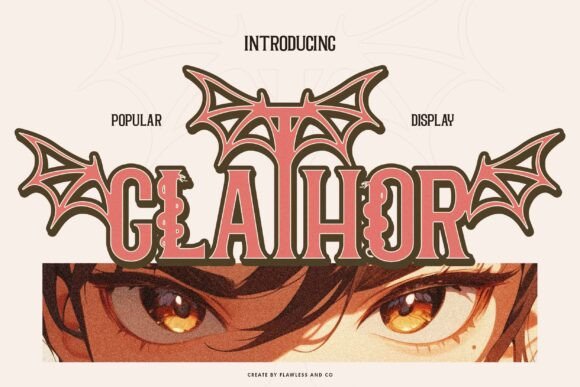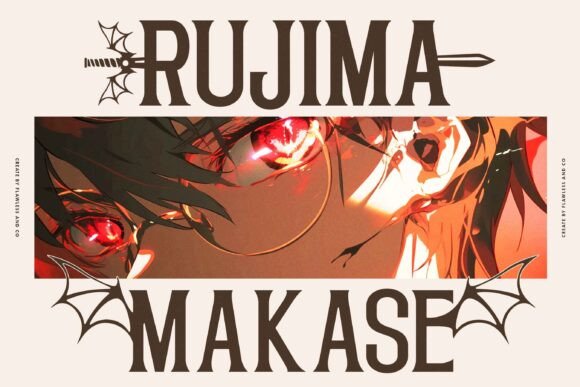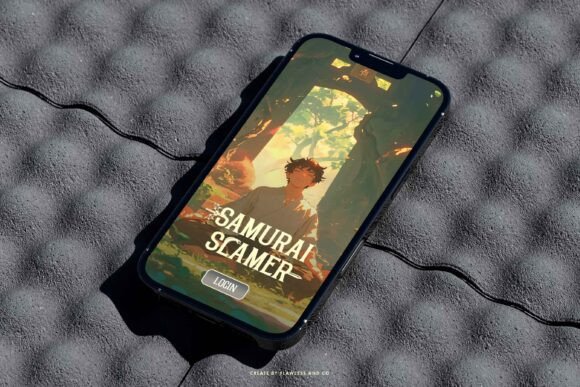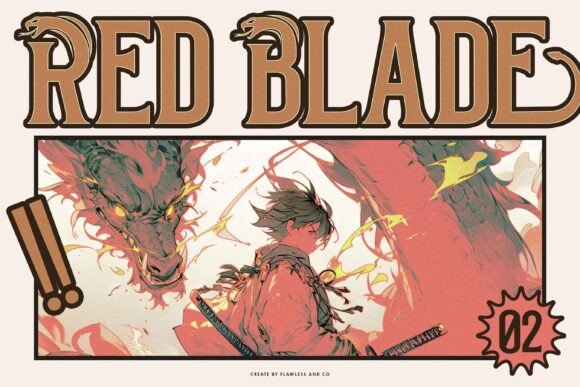
Glathor Font: Gothic Display Font for Fantasy & Horror Logo Design
About the Glathor Font
Discover the charm of Glathor Font. This font is a perfect blend of modern aesthetics and classic appeal. Glathor is a striking display font that blends gothic aesthetics with fantasy elements, creating a bold and mysterious look. Its unique spiderweb ornaments add a distinctive decorative touch, while the solid and strong letterforms ensure excellent readability at any size. Perfect for titles, logos, posters, and designs that demand a powerful visual presence, Glathor is also ideal for fantasy, horror, and gothic-themed projects.
Glathor excels in headline treatments, logos, and short, impactful text for posters or packaging. Its strong forms command attention, making it ideal for projects needing a bold statement. However, its ornate details and weight make it unsuitable for body text or UI elements requiring high legibility in smaller sizes or extended reading.
Pairing Glathor effectively requires considering its gothic and fantasy influences. A clean, geometric sans-serif like Futura or a minimalist serif like Garamond offers a sophisticated contrast, balancing Glathor’s boldness with clarity. For a more dramatic effect, a script font with a gothic flair could be used sparingly.
Glathor projects an overall personality of bold mystery and dark elegance. It’s a powerful choice for brands or projects associated with fantasy, horror, gothic literature, high fantasy gaming, or other themes requiring a strong visual identity with a hint of darkness.
Glathor Font Usage Examples
Glathor Font Example